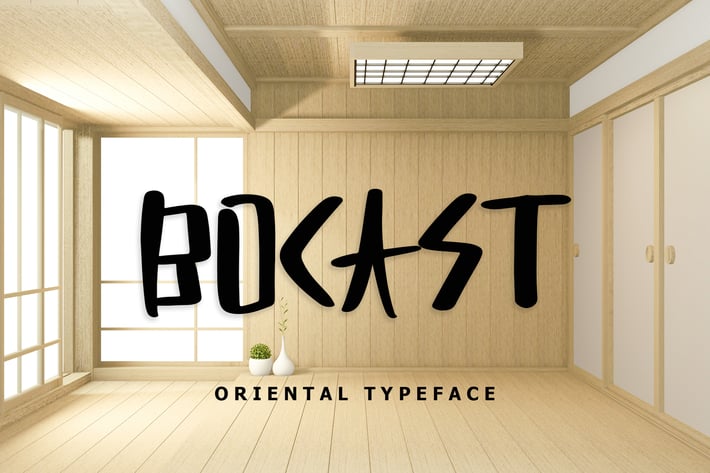
Bocast Japan Style Display Font
Bocast Japan Style Display Font is a unique and extraordinary display font that will make any Japanese-themed design.
Bocast Japan Style Display Font is perfect for branding projects, logo, T-shirt designs, book cover design, social media posts, advertisements, product packaging, product designs, label, watermark, invitation, stationery, and any projects.